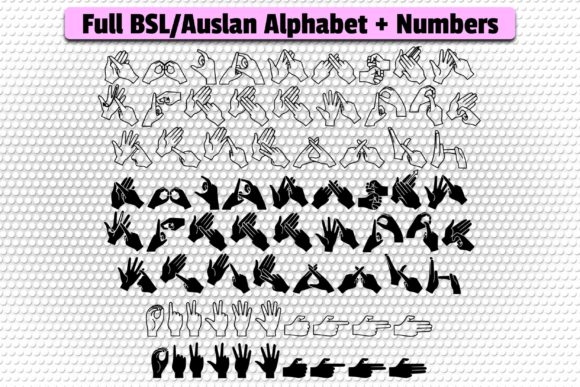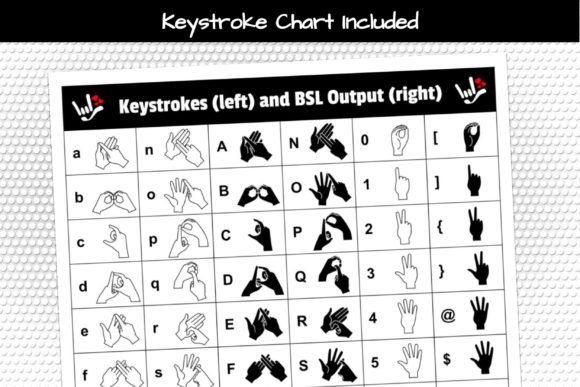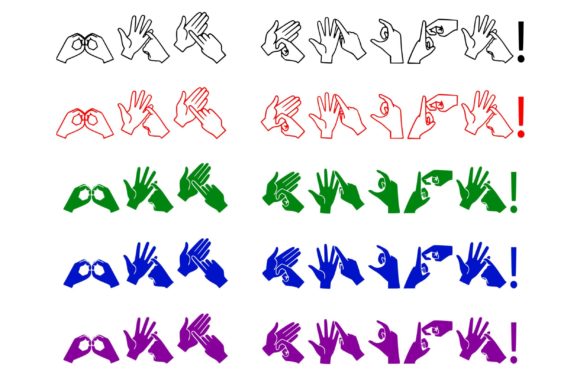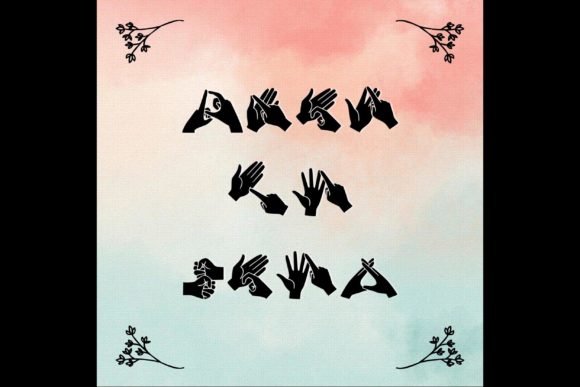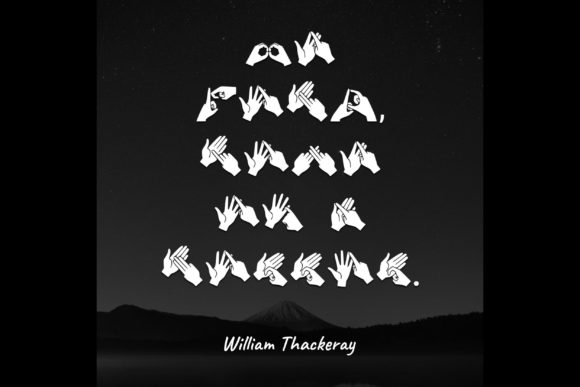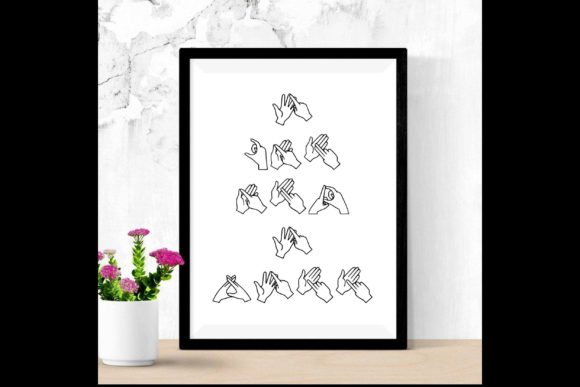
Unlock the Power of Sign Language in Your Designs
Have you ever been stuck on a design project, searching for that perfect element to take it to the next level? Maybe you’re working on a poster for a deaf awareness event, or a logo for a sign language interpretation service. Whatever your project, you know that a little something extra can make all the difference. That’s where the Able Lingo BSL 1 Font comes in – a unique dingbats font inspired by the beauty and simplicity of British Sign Language.
This font is more than just a novelty; it’s a valuable tool for designers looking to add an extra layer of meaning and visual interest to their work. By incorporating the Able Lingo BSL 1 Font into your designs, you can create something truly special that resonates with your audience. Whether you’re a seasoned pro or just starting out, this font is sure to inspire your creativity and help you achieve your design goals.
Able Lingo BSL 1 Font Key Features
- Font Style: A unique, specially designed font for British Sign Language (BSL) that enables accurate representation of BSL characters.
- Character Set: Includes a comprehensive set of BSL characters, including manual alphabet, numbers, and common signs.
- Resolution: Optimized for use at high resolutions, ensuring clear and legible display of BSL characters on various devices and screens.
Able Lingo BSL 1 Font Review
Overall, I’m impressed with the Able Lingo BSL 1 Font, but as with any font, it’s not perfect. Here are my thoughts:
- Accurate representation of British Sign Language (BSL) characters: The font does a great job of accurately depicting BSL signs, which is essential for effective communication.
- Clear and legible: The font is easy to read, even at smaller sizes, making it suitable for various applications.
- Customizable: The font can be customized to suit different design needs, which is a big plus.
- Limited character set: The font may not include all the necessary characters for comprehensive BSL representation, which could be a problem for complex signs or phrases.
While the Able Lingo BSL 1 Font has its limitations, it’s a solid choice for designers who need to work with BSL characters. With a little customization and care, it can be a valuable addition to any design project.
The Able Lingo BSL 1 Font is ideal for creating visual content related to British Sign Language (BSL). Some common use cases include:
- Creating posters or flyers for BSL awareness campaigns.
- Designing infographics to explain BSL terminology or grammar.
- Developing educational resources for BSL courses or workshops.
Can I customize the Able Lingo BSL 1 Font to suit my design needs?